Choosing the right fashion fonts for lookbooks, catalogs, and editorial layouts can completely transform the way your designs are perceived. Many fashion brands struggle with layouts that feel cold, generic, or lacking personality. Even when photography is stunning and products are beautifully presented, weak typography can make an entire lookbook feel forgettable.
The solution often comes down to selecting fonts that communicate elegance, confidence, and editorial sophistication. Fashion typography is not just about readability; it helps establish mood, reinforce brand identity, and create a premium visual experience.
Whether you’re designing a fashion lookbook, seasonal catalog, editorial spread, magazine-inspired campaign, or luxury brand presentation, the fonts you choose play a critical role in shaping how audiences interact with your content.
In this article, we’ll explore some of the best fashion fonts for editorial projects, along with preview ideas, ideal use cases, and font pairing suggestions.
Why Typography Matters in Fashion Editorial Design
Fashion design is highly visual, but typography remains one of the most powerful tools for storytelling.
Strong fashion typography helps:
- Create a premium impression
- Build brand consistency
- Improve visual hierarchy
- Support luxury positioning
- Enhance editorial aesthetics
The best fashion publications often combine exceptional photography with carefully selected typography systems.
This balance creates layouts that feel polished, memorable, and professionally curated.
Recommended Fashion Fonts
1. Kazime
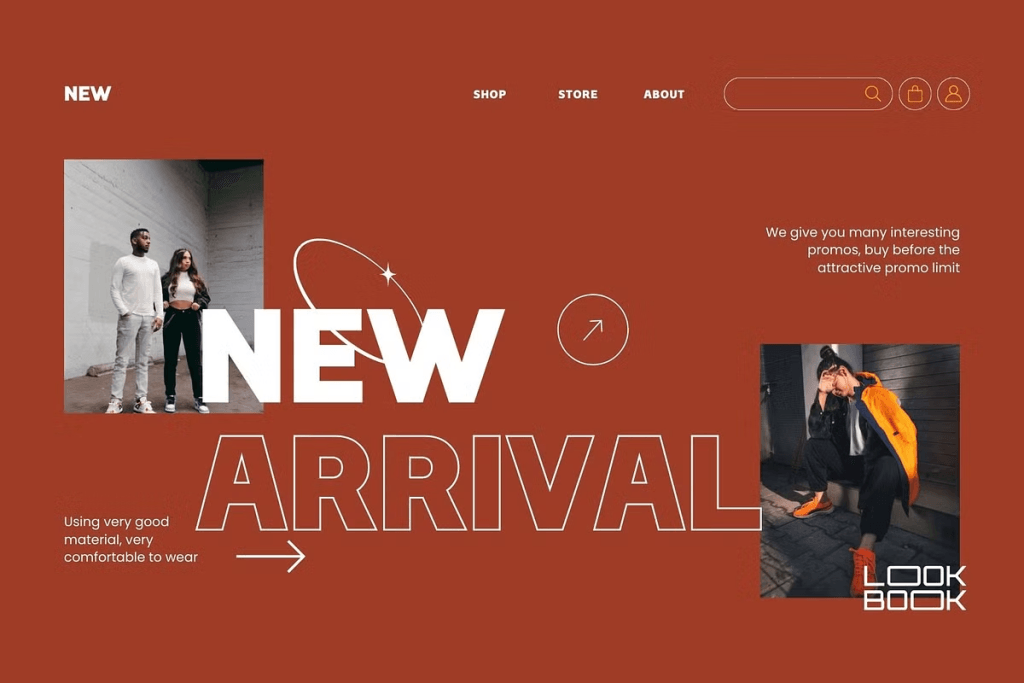
2. Biospace
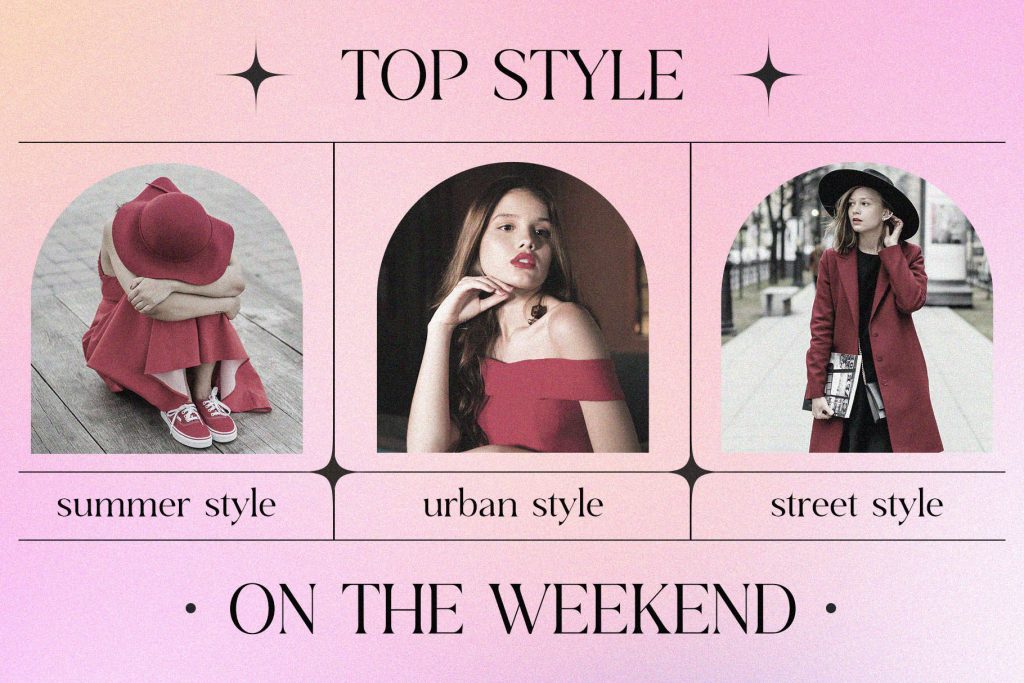
3. Fishera
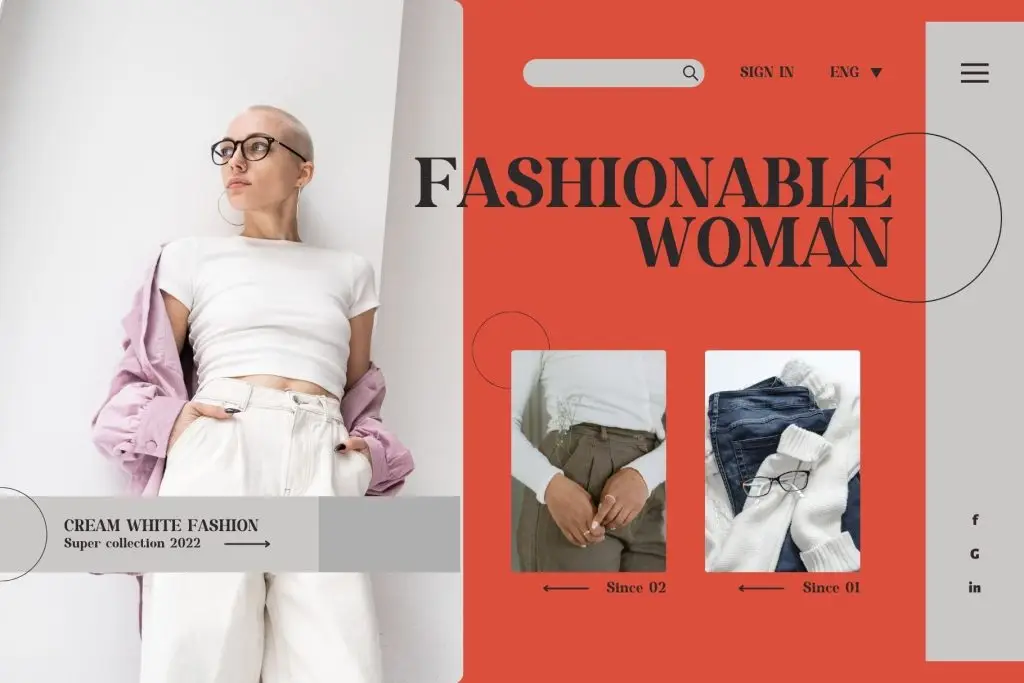
4. Kefhila Sans
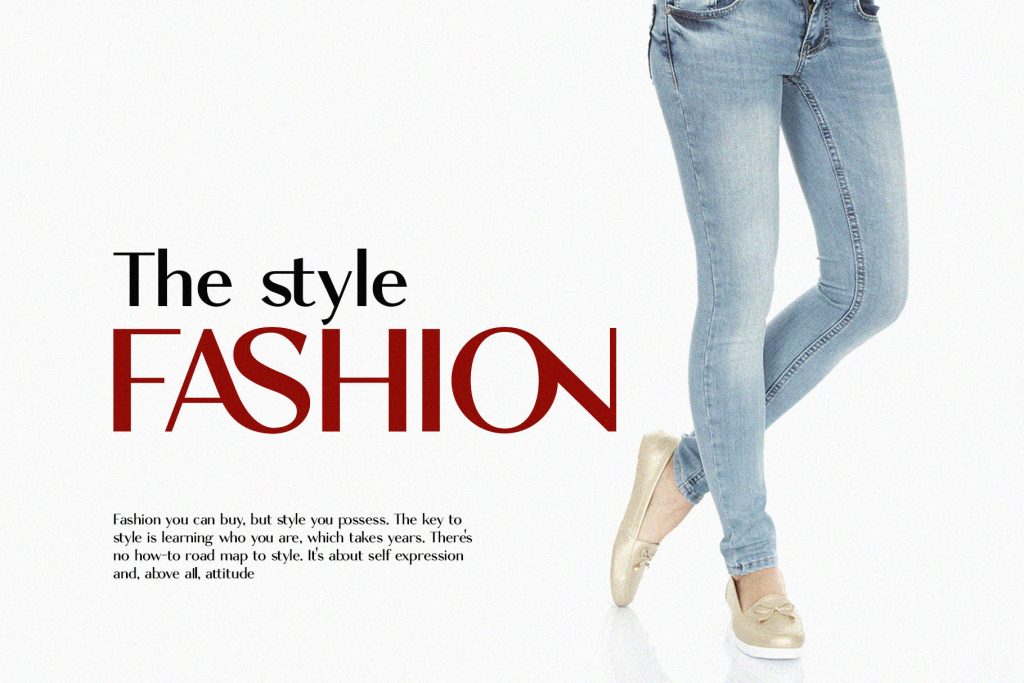
5. Flaters
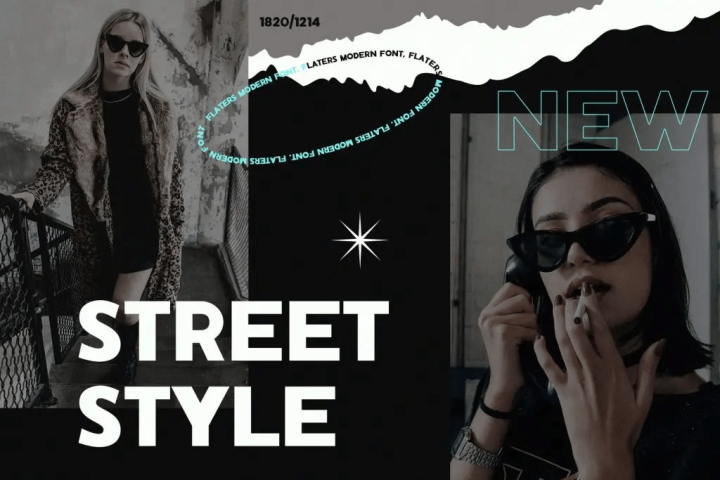
6. Schindler
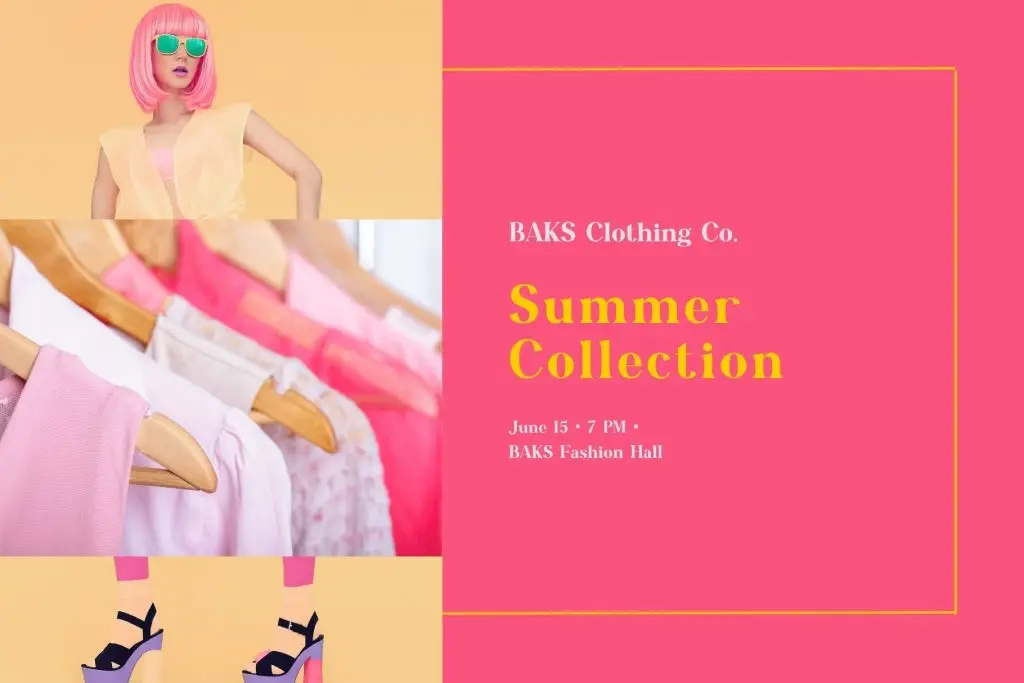
7. Fhunster
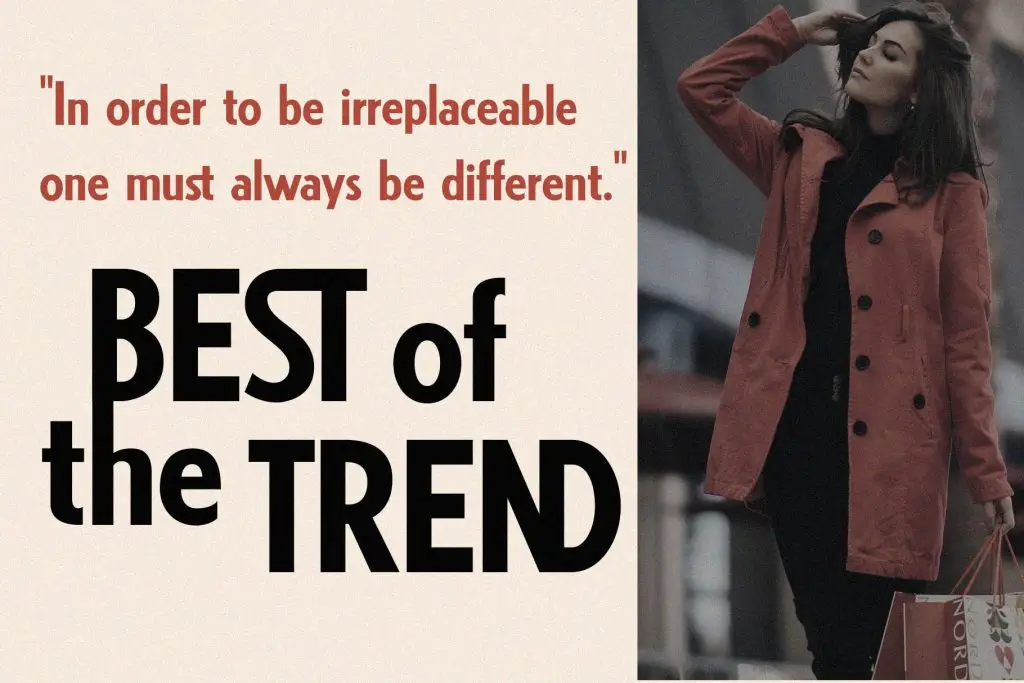
8. Viona Collins
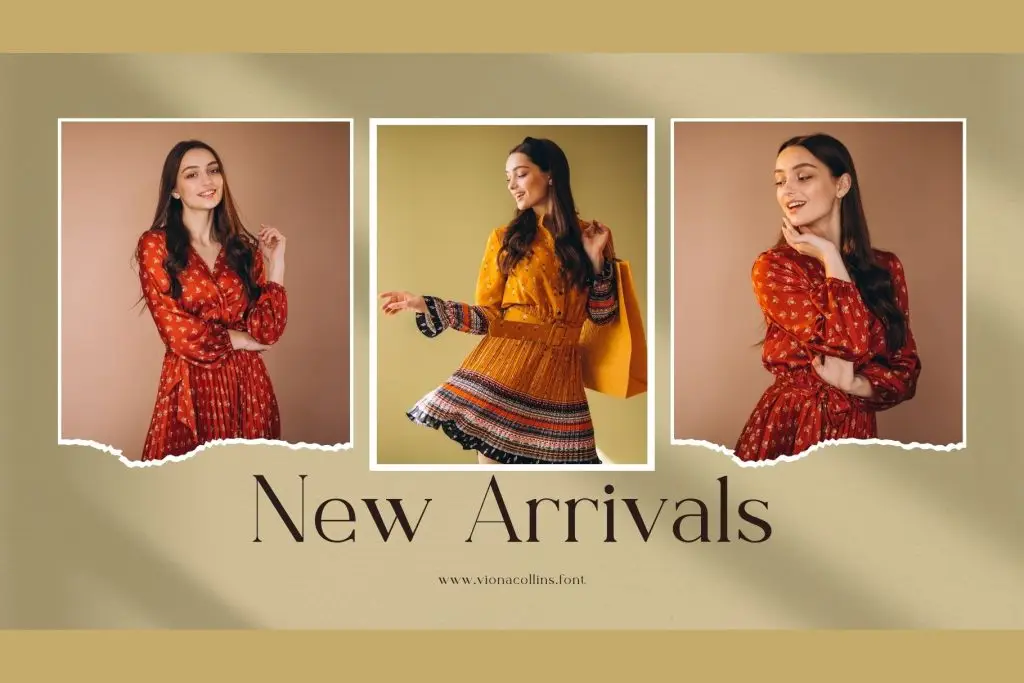
9. Roncek
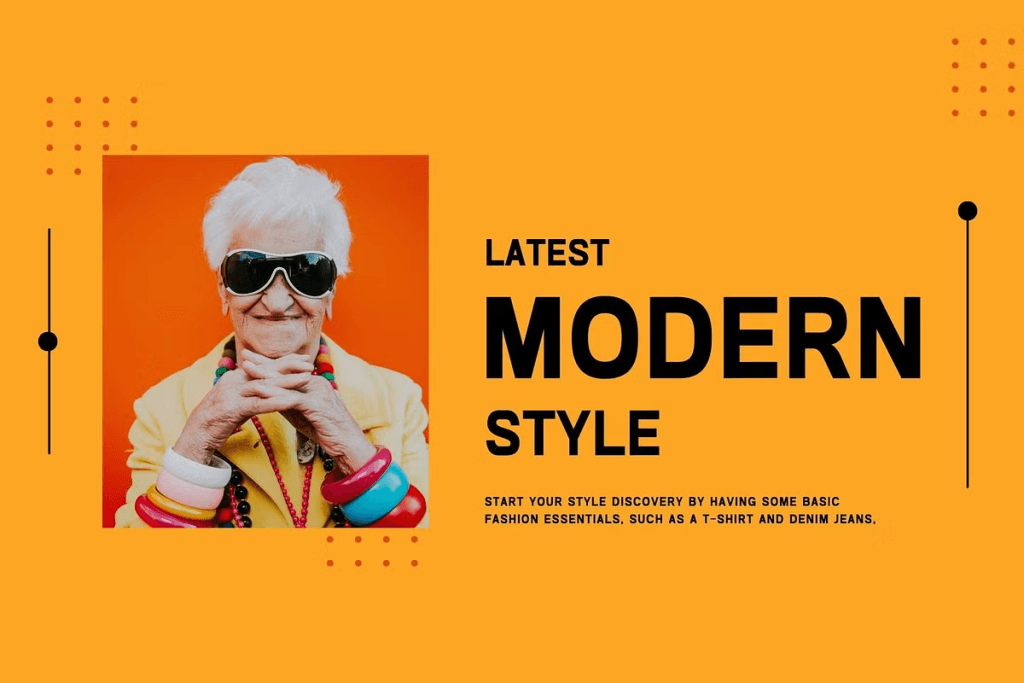
10. Numplher
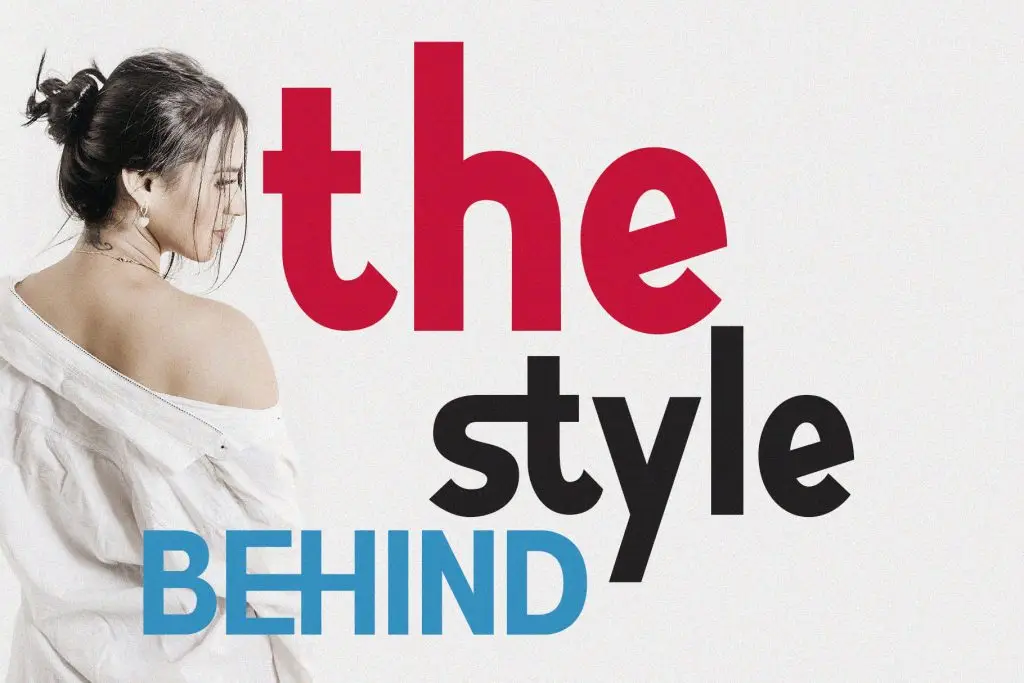
Best Practices for Fashion Typography
Selecting the right font is only part of the process.
Focus on Hierarchy
Fashion layouts should guide readers naturally through content.
Use typography hierarchy for:
- Cover titles
- Section headers
- Product descriptions
- Editorial storytelling
Use Generous White Space
Luxury fashion design often relies on restraint. Allow typography room to breathe by maintaining generous spacing throughout the layout.
Let Photography Lead
Typography should support photography, not compete with it. The strongest fashion editorials balance typography and imagery harmoniously.
Maintain Consistency
Use a consistent font system throughout your catalog or lookbook. Consistency helps strengthen brand recognition and improves the overall reading experience.
Common Mistakes in Fashion Editorial Typography
Avoid these common issues when designing lookbooks and catalogs.
Using Too Many Fonts
Limiting your design to two or three typefaces creates stronger visual cohesion.
Overdecorating Headlines
Fashion typography works best when it feels intentional and refined.
Ignoring Readability
Beautiful typography should still be functional. Ensure body text remains easy to read across print and digital formats.
Following Trends Without Strategy
Not every trend aligns with your brand. Choose typography that supports your long-term visual identity.
Why Fashion Brands Invest in Premium Typography
Fashion is an industry built on perception.
Typography helps communicate:
- Exclusivity
- Luxury
- Quality
- Creativity
- Professionalism
A thoughtfully chosen font system elevates every touchpoint, from printed catalogs to social media campaigns.
This is why leading fashion brands invest heavily in typography as part of their visual identity strategy.
Conclusion
The right fashion fonts for lookbooks, catalogs, and editorial layouts can transform a design from ordinary to unforgettable. Typography influences how audiences perceive style, quality, and brand personality, making it one of the most important elements in fashion publishing.
Fonts such as Kazime, Biospace, Fishera, Kefhila Sans, Flaters, Schindler, Fhunster, Viona Collins, Roncek, and Numplher provide a wide range of options for creating sophisticated editorial experiences. Whether you’re designing a luxury catalog, fashion campaign, seasonal lookbook, or magazine-inspired layout, these fonts can help establish a stronger visual identity and elevate your overall presentation.